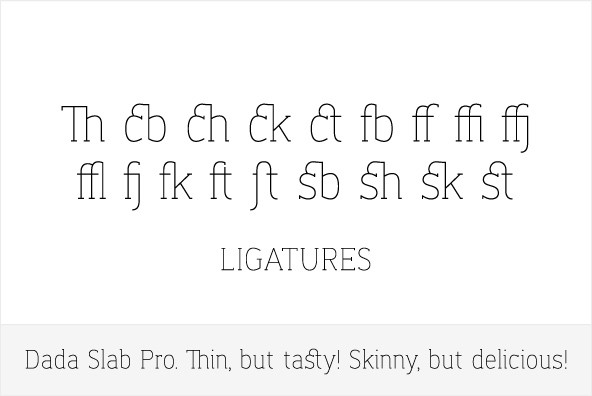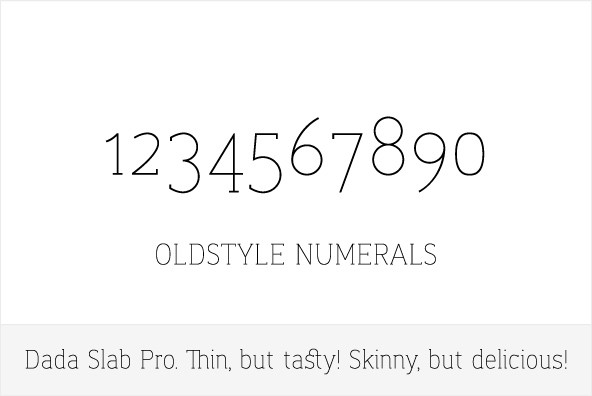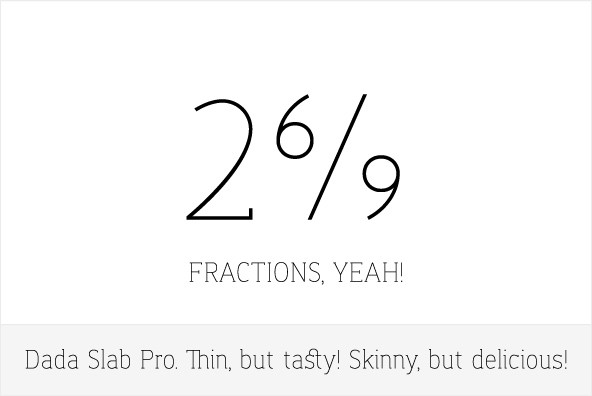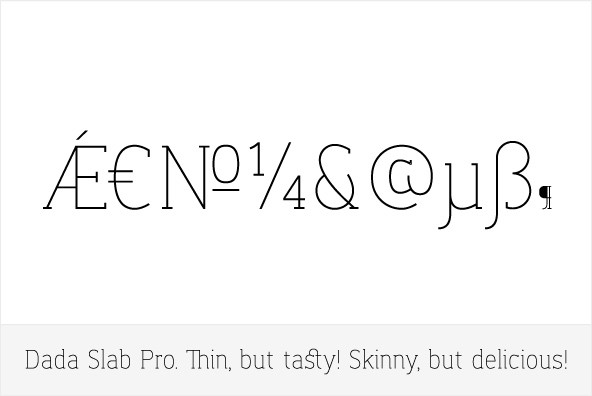
Dada Slab Pro
Dada Slab Pro is simple in form but an elegant font with huge language support and open-type features like ligatures, stylistic alternates, fractions, four variations of numerals and many more... It is suitable for large headlines in applications like magazines or newspapers.